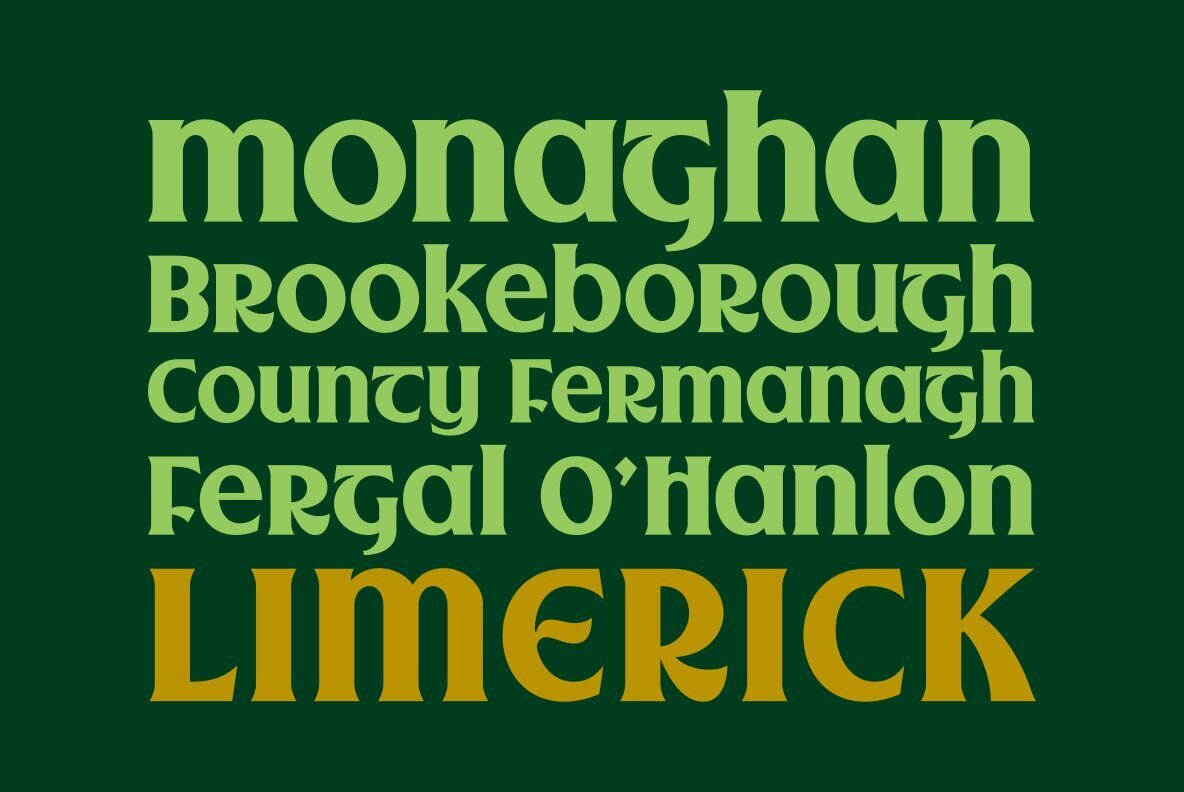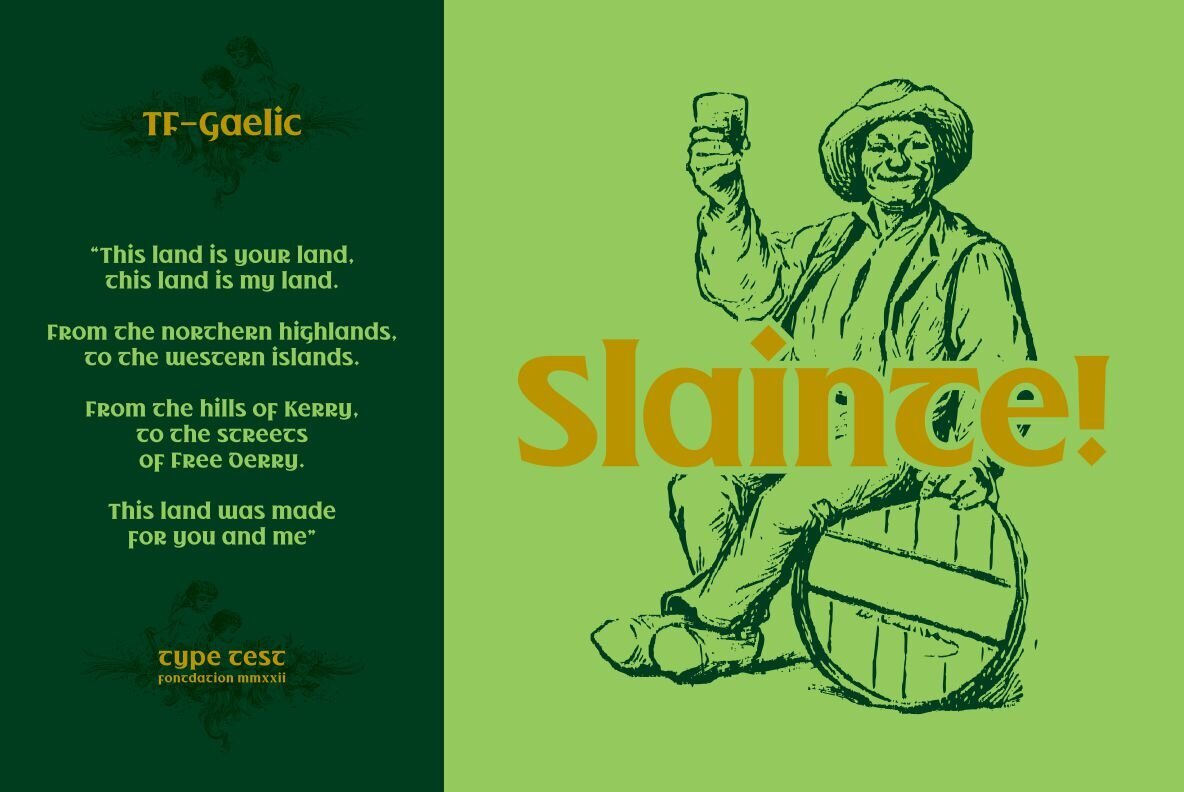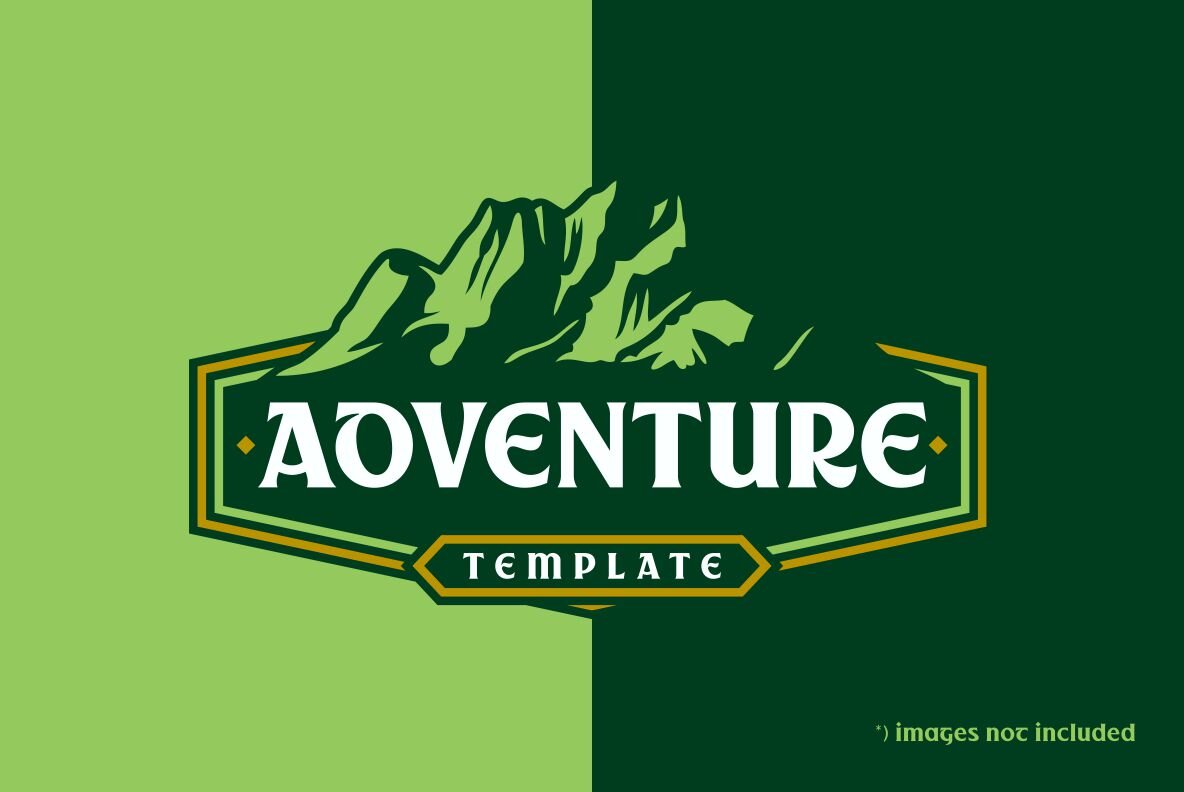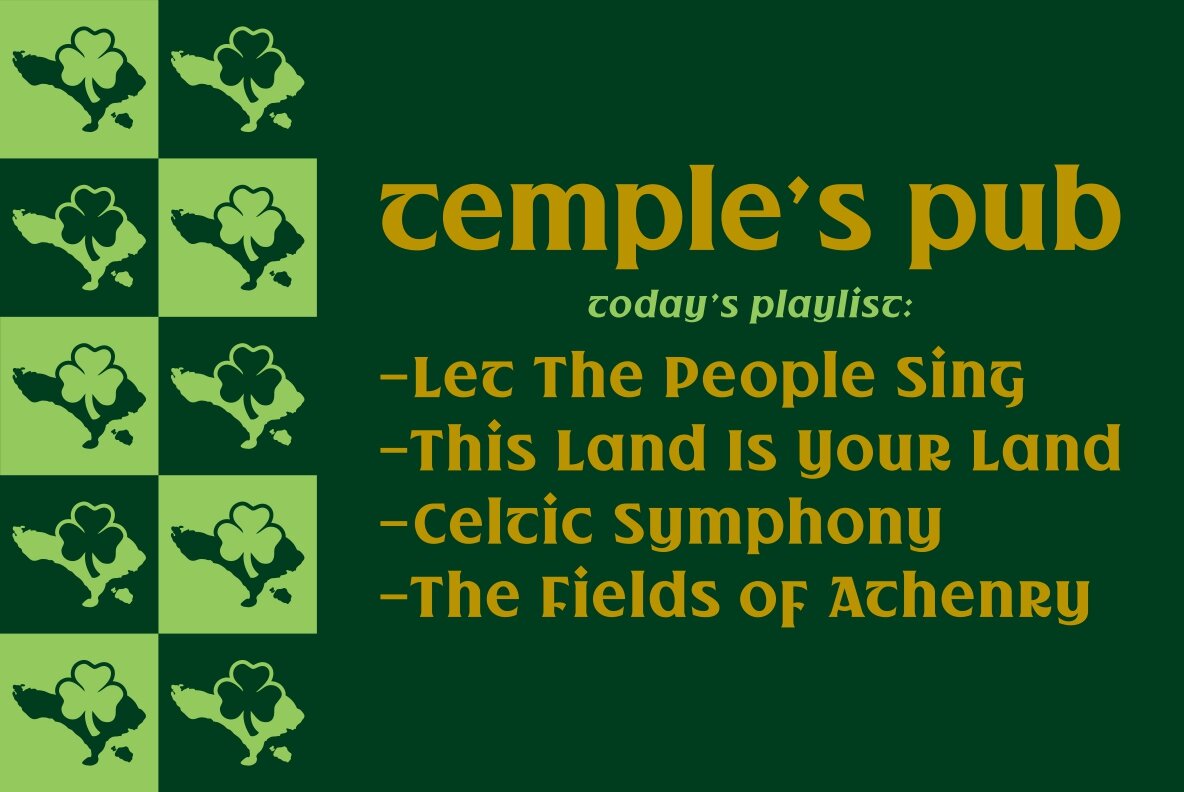
TF Gaelic Font
TF Gaelic elegantly bridges the past and present, drawing from the rich tradition of Gaelic letterforms to offer a font that is both distinctive and contemporary. This vintage serif font stands out due to its artful blend of classic influences and modern sensibilities, making it superbly adaptable for any design project.TF Gaelic: Vintage Serif with a Modern Twist